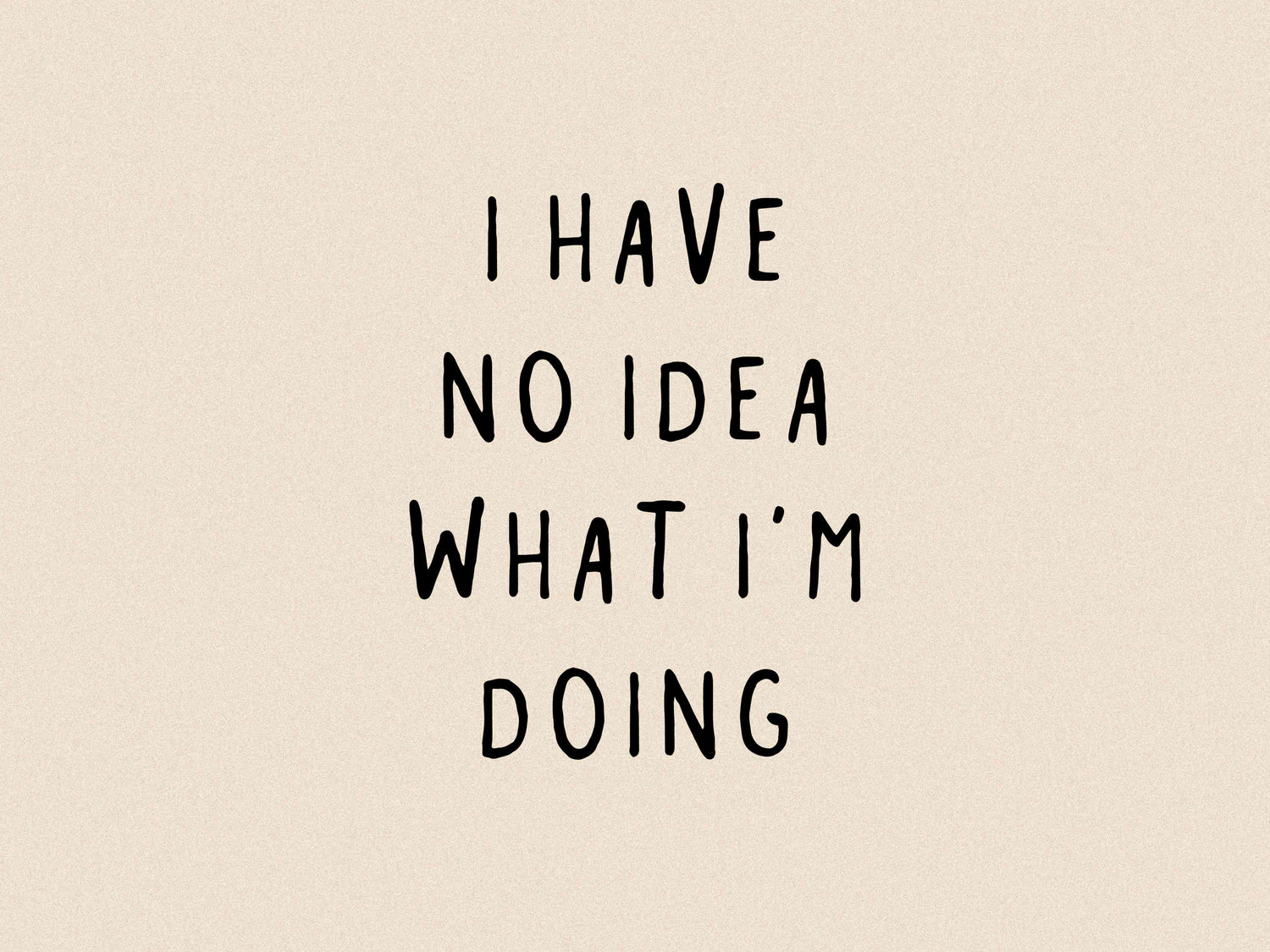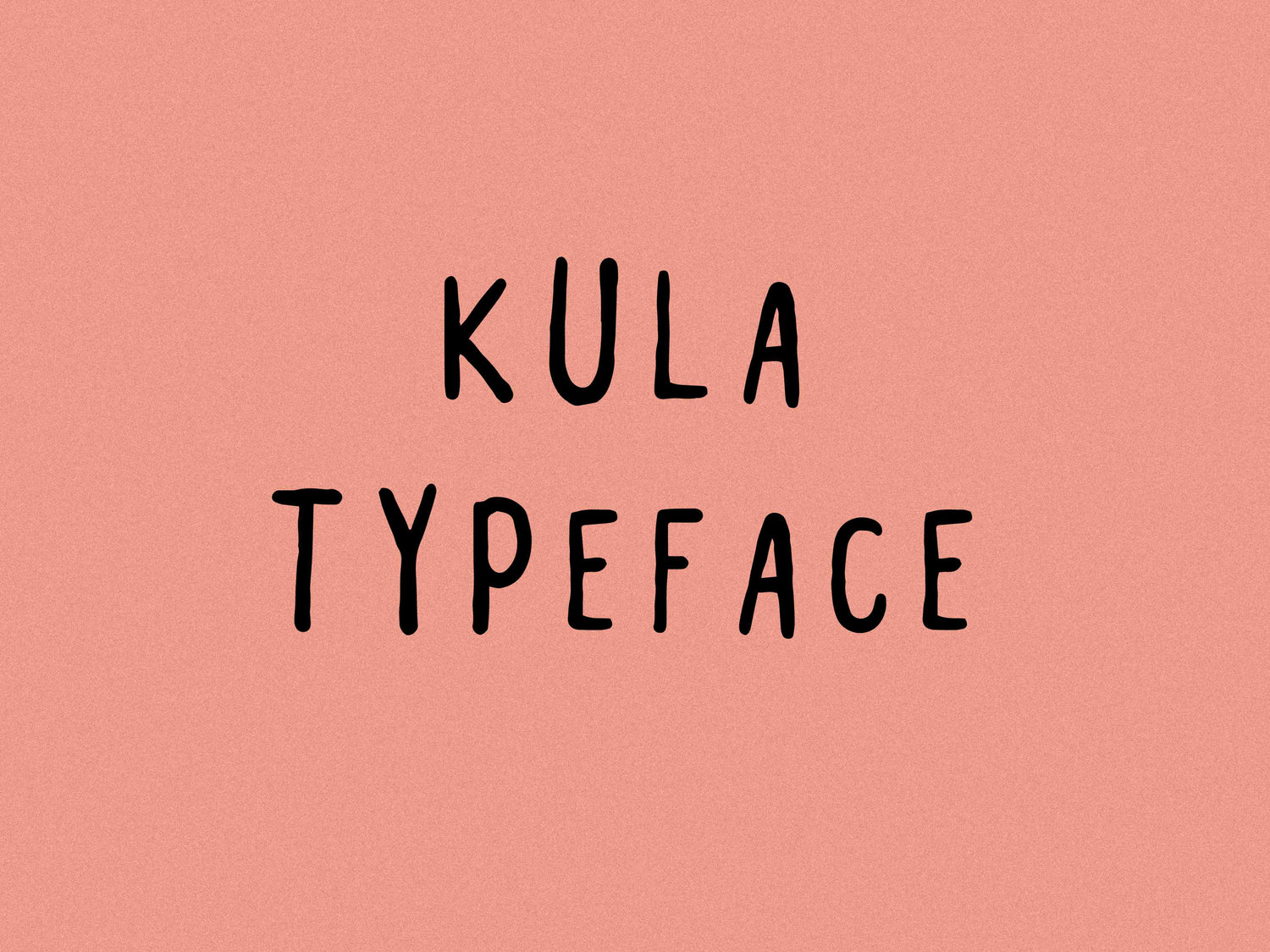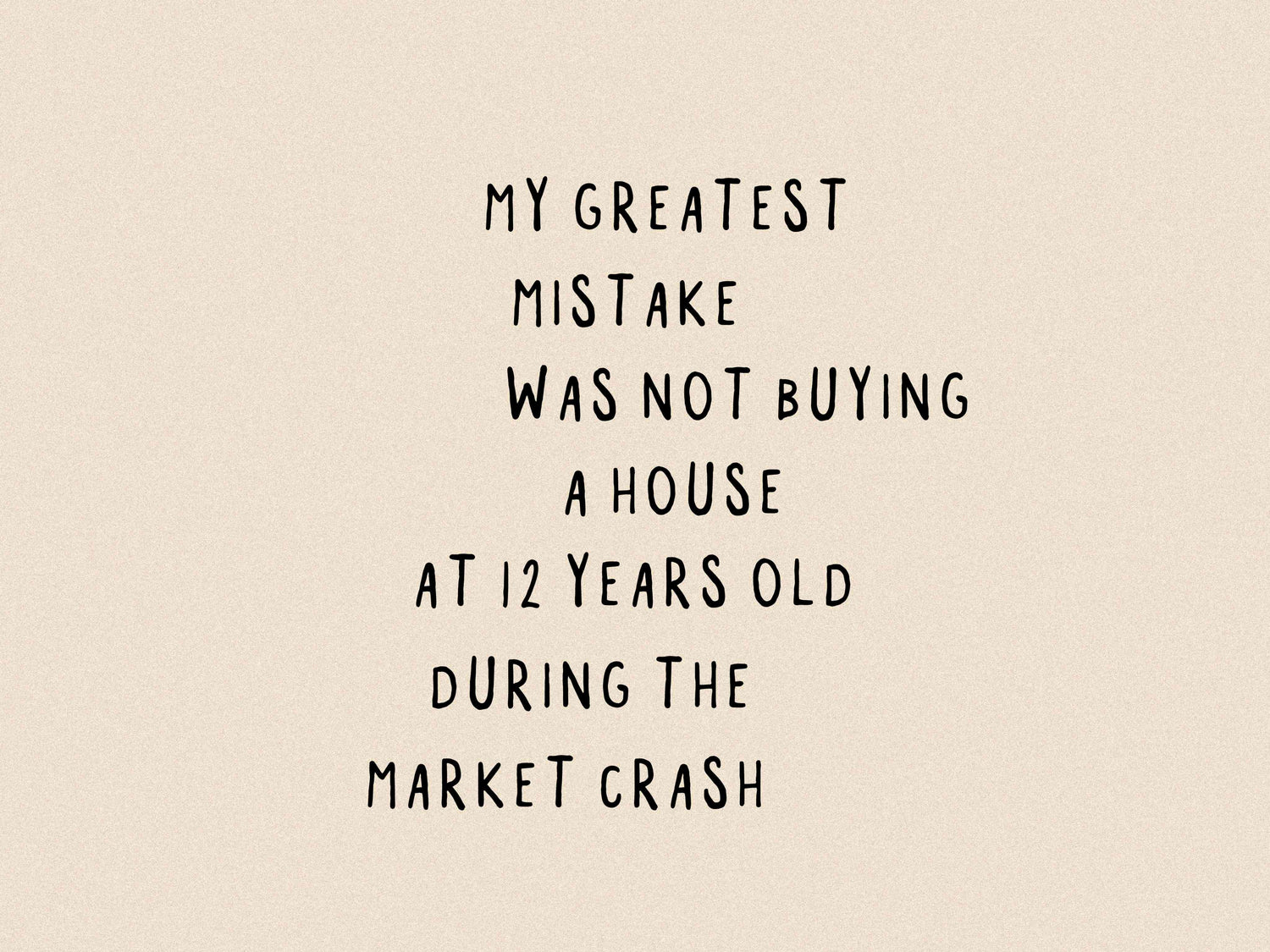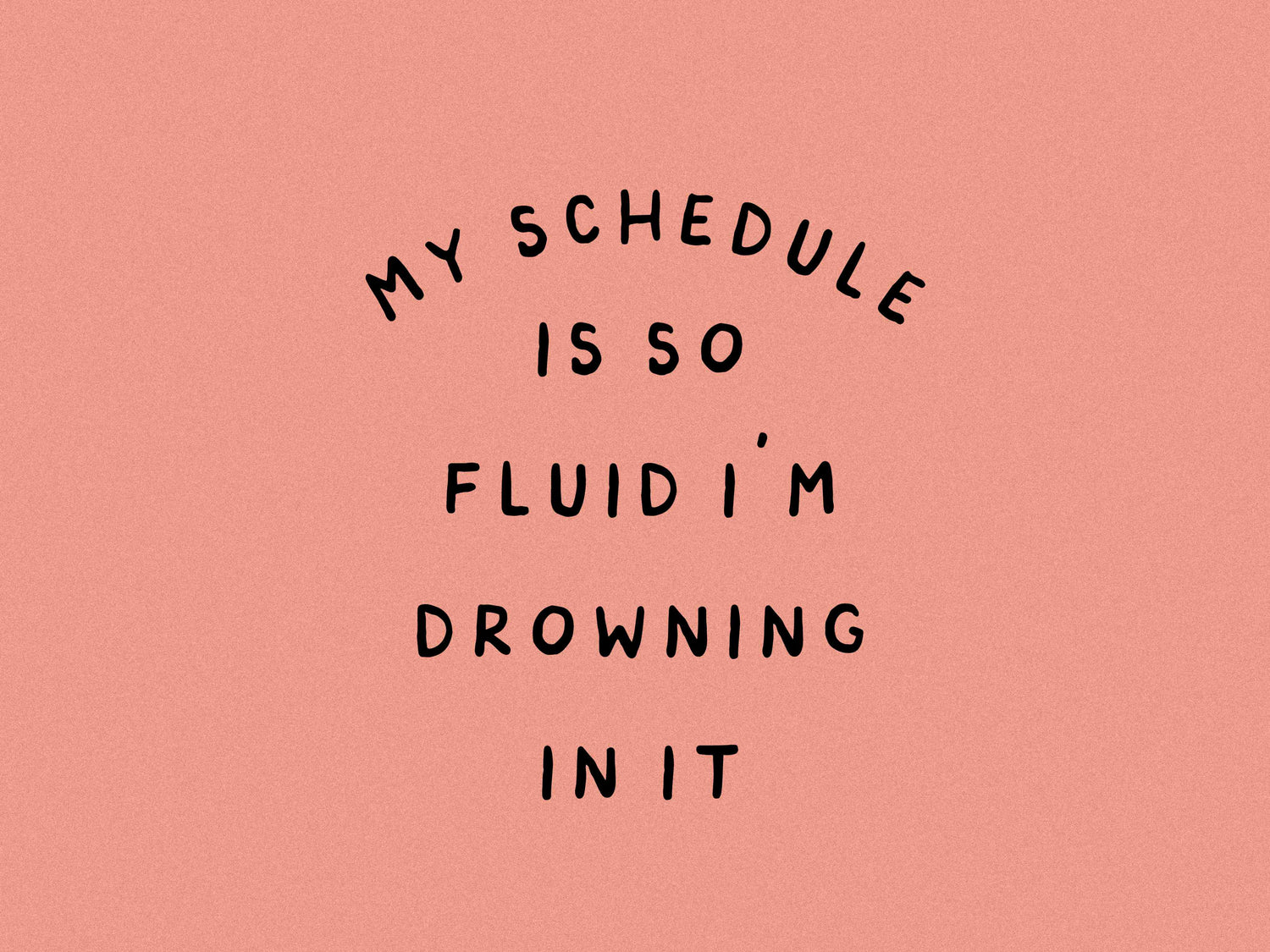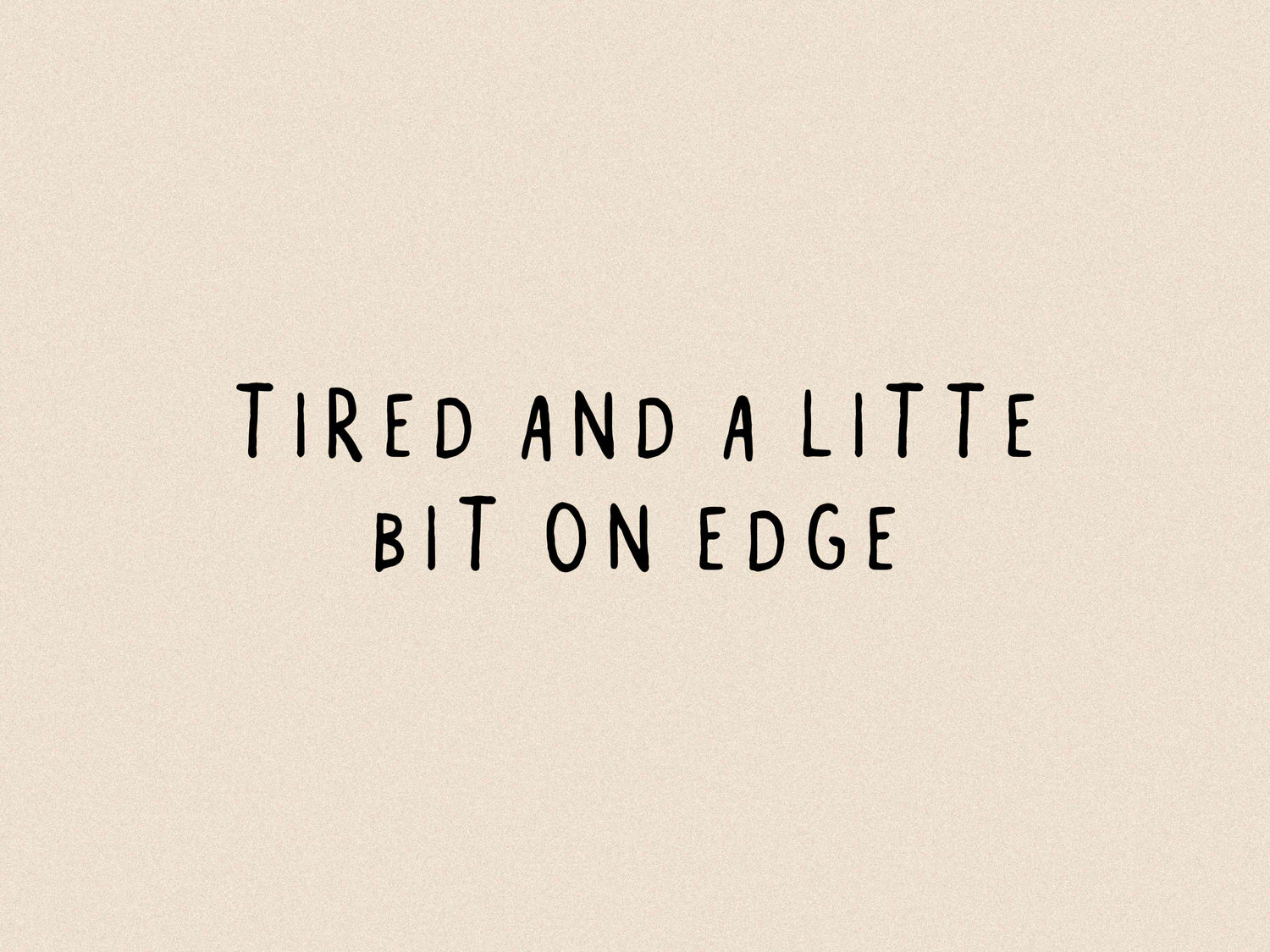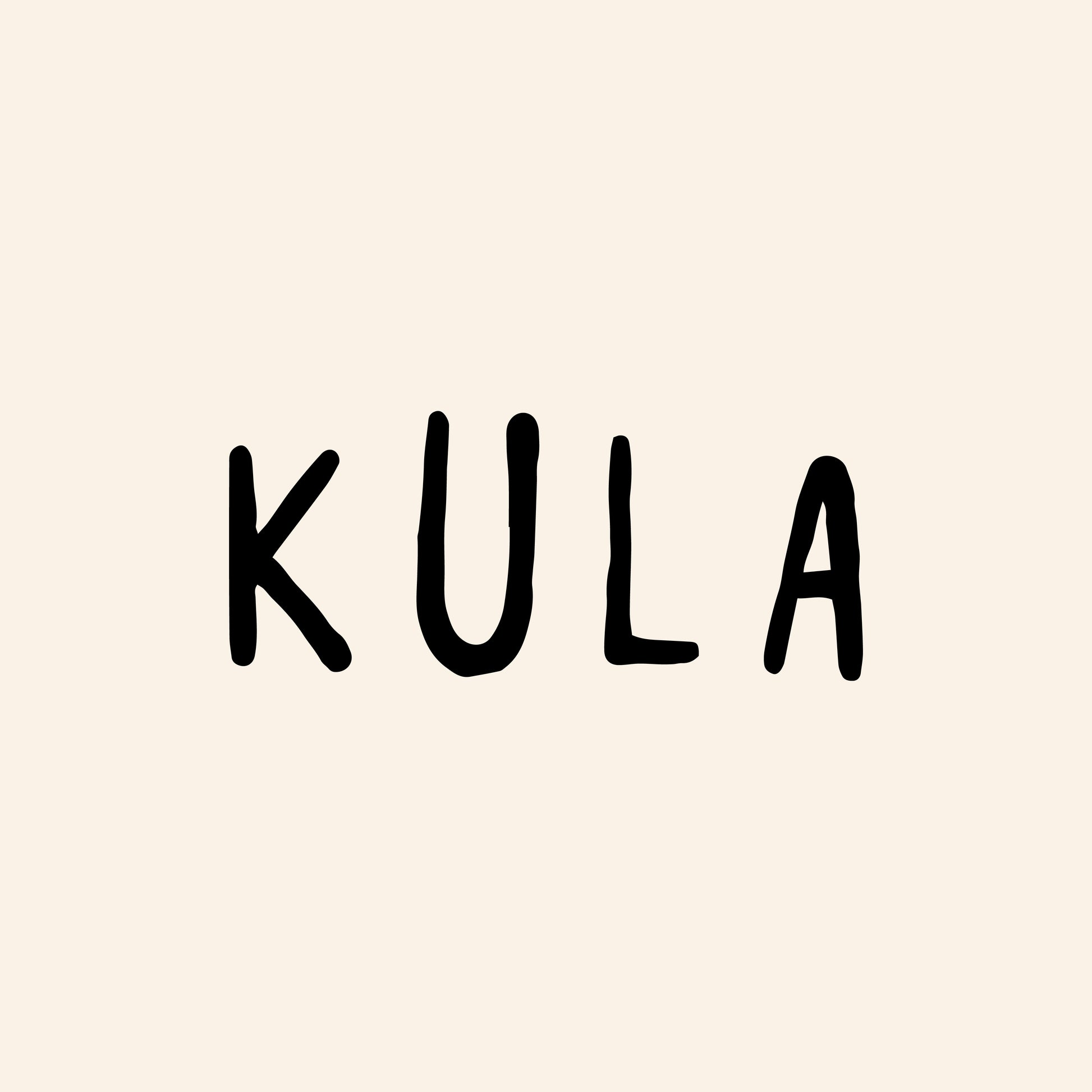
Kula
Kula is laid-back, slightly weird, and pretty easy to get along with.
You’ll get two full sets — caps and small caps — both with a slightly imperfect, natural feel. It’s expressive without getting chaotic, and works anywhere that could use some personality.